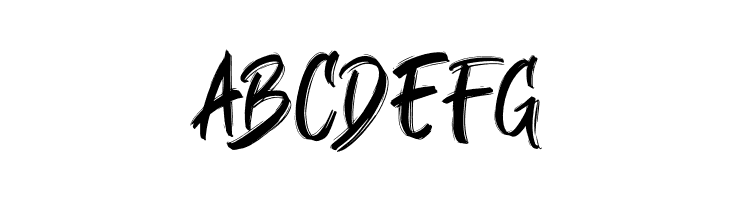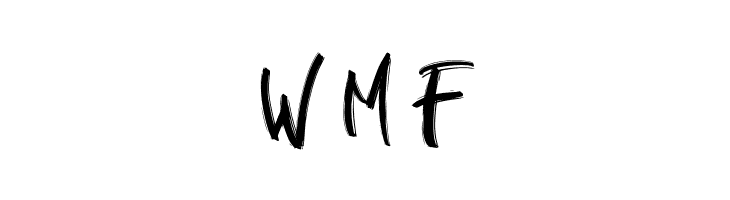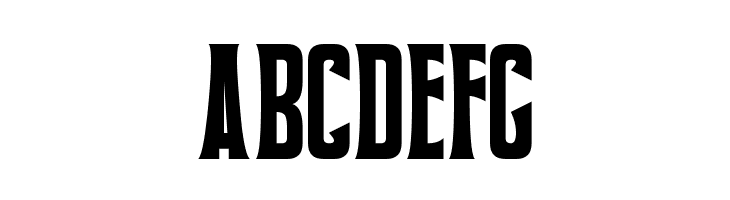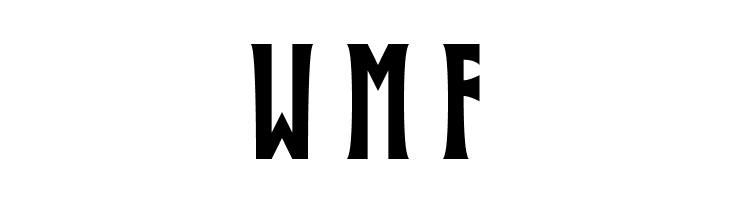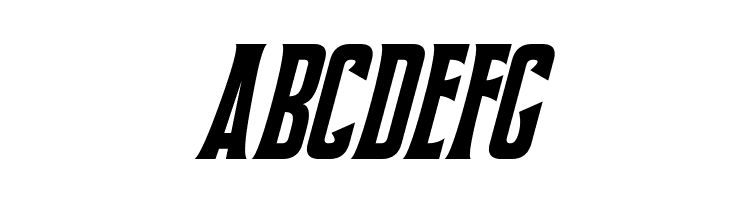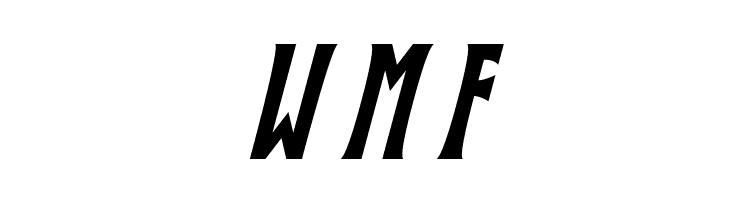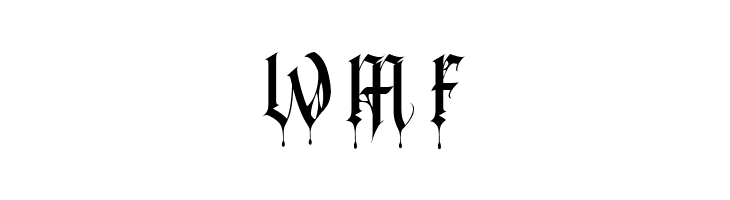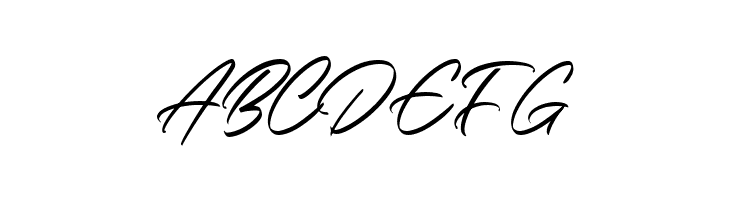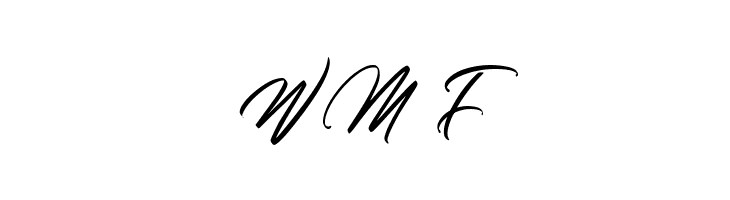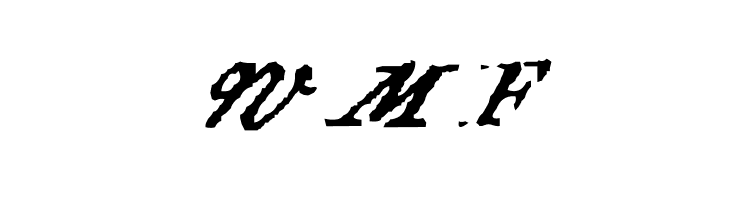
• Black Sam's Gold
• Black Shine
A dynamic and elegant cursive script font with flowing, interconnected strokes.
• Black Spider
A Gothic-inspired font with sharp, intricate details and a dramatic style.
• Black Stallion
A dynamic and flowing script font with elegant, cursive letterforms.
• Black Stallion
• Black Unicorn
A bold, geometric font with modern, futuristic design elements.
• BLACKBALL
• BlackMary
A bold, geometric font with a modern, futuristic style and decorative elements.
• Blackmoon Quest
A bold, narrow font with sharp angles and a dramatic, modern style.
• Blackmoon Quest Italic
A bold, italic font with a strong slant and high contrast, exuding energy and modernity.